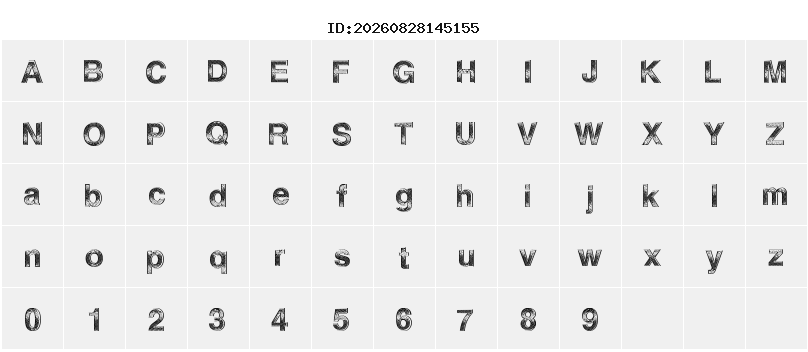
• Font Name: TitleSolution
• Designer: Xerographer Fonts Max Infeld
• Description: Made at Xerographer Studios in Chico,CA a custom template by max infeld
TitleSolution.ttf is a modern, elegant sans-serif font designed for ultimate readability and visual harmony. Perfect for branding, headlines, web design, and print materials.